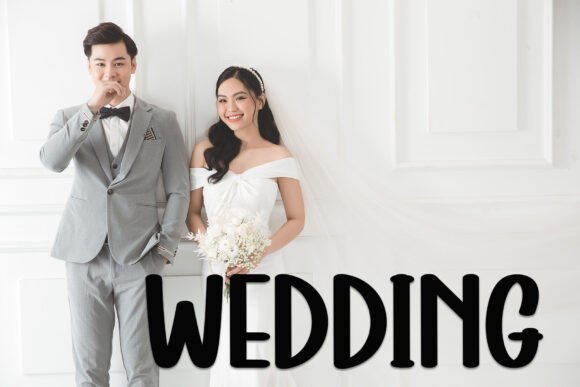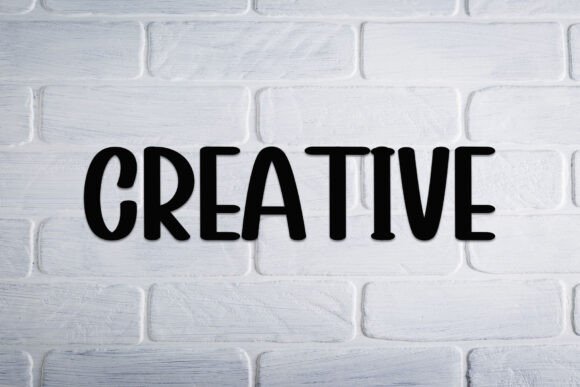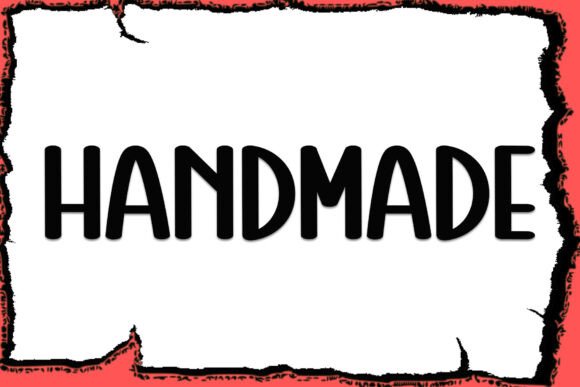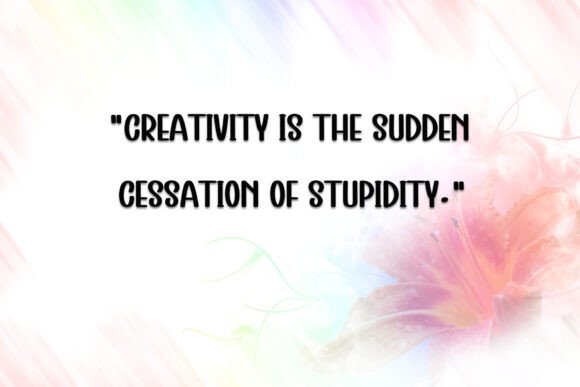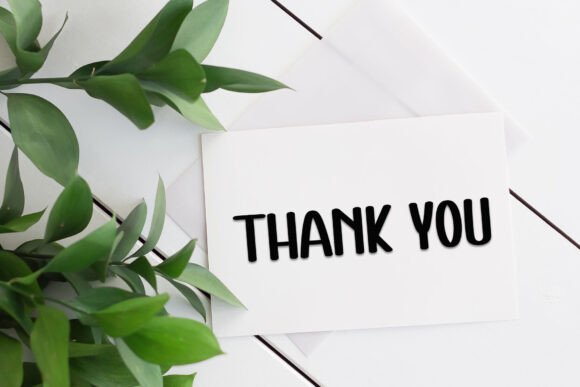
The Perfect Font to Spring into Creativity
Do you remember that moment when a font just clicked and your design idea came to life? For many designers, it’s the moment when the perfect font is found, and the project starts to take shape. It’s that feeling of excitement and possibility that makes design so rewarding.
Meet April Font, a fun and expressive display font designed to make your creative ideas stand out. With its bold, rounded letters and friendly personality, April Font is perfect for eye-catching headlines, kids-themed projects, packaging, branding, and more. Whether you’re designing for print or digital, April Font brings a playful energy that’s hard to miss.
As a designer, you know that the right font can make all the difference. April Font is a valuable addition to any design toolkit, offering a unique and eye-catching way to communicate your message.
April Font Key Features
- Font Family: April is a sans-serif font family designed for digital use.
- Font Sizes: Available in multiple weights, ranging from 100 to 900.
- Resolution: Designed for screen use, with optimal legibility at resolutions up to 300 DPI.
- Unique Characteristics: April features a clean and modern design, with subtle rounded edges and a highly readable x-height.
April Font Review
Overall, I think the April Font is a solid choice for designers looking for a clean and modern sans-serif font. Here are some of its standout features:
- ✨ Elegant and refined appearance: The April Font has a smooth, rounded feel that makes it perfect for a variety of applications, from digital products to print materials.
- ✨ Great legibility: The font’s clear and concise letterforms ensure that your text is easy to read, even at smaller font sizes.
- ✨ Versatile: The April Font comes in multiple weights and styles, making it easy to adapt to different design needs.
- ⚠️ Limited expressiveness: While the April Font is great for clean and simple designs, it may not be the best choice for more complex or creative projects.
- ⚠️ Limited support for non-Latin scripts: If you need to work with languages other than English, you may find the April Font lacking in support.
Overall, I think the April Font is a great addition to any designer’s toolkit. While it may not be perfect for every project, its clean and modern aesthetic makes it a solid choice for a wide range of applications.
The April Font is a versatile and elegant font that can be used for various purposes, including:
- Blog posts and articles
- Printable art and wall decor
To get the most out of the April Font, experiment with different font sizes, colors, and styles to create a unique and eye-catching design.
Alternatives to April Font for Designers
Lato is a clean and modern sans-serif font. It is perfect for use in digital interfaces, magazines, and websites where you want to create a clean and minimalistic look. Lato is a great alternative to April Font because it has a similar modern feel, but with a more neutral and calm tone.
Montserrat is a geometric sans-serif font that is perfect for use in urban and modern settings. It is great for use in logos, branding, and websites where you want to create a strong and modern look. Montserrat is a great alternative to April Font because it has a similar modern feel, but with a more edgy and bold tone.
Open Sans is a clean and modern sans-serif font that is perfect for use in digital interfaces, magazines, and websites. It is great for use in situations where you want to create a clean and minimalistic look, but with a bit more personality than Lato. Open Sans is a great alternative to April Font because it has a similar modern feel, but with a more approachable and friendly tone.
Inter is a modern sans-serif font that is perfect for use in digital interfaces, magazines, and websites. It is great for use in situations where you want to create a clean and minimalistic look, but with a bit more sophistication than Open Sans. Inter is a great alternative to April Font because it has a similar modern feel, but with a more refined and elegant tone.